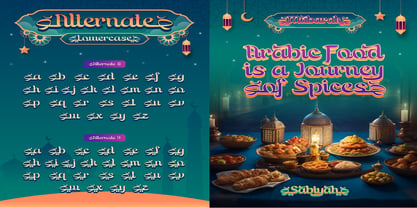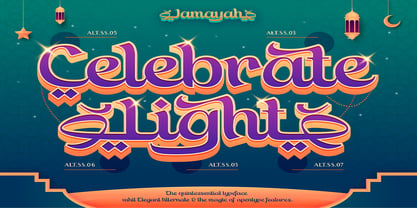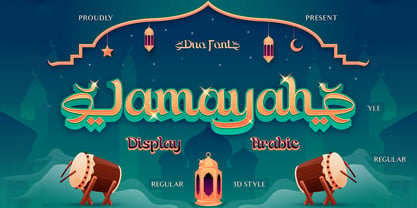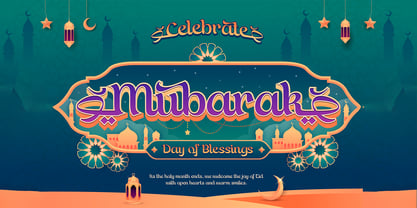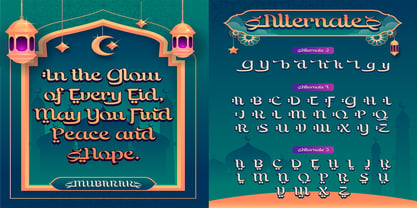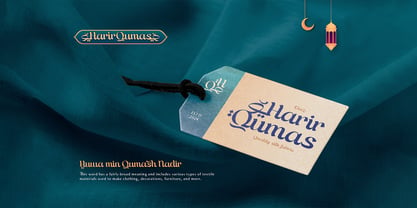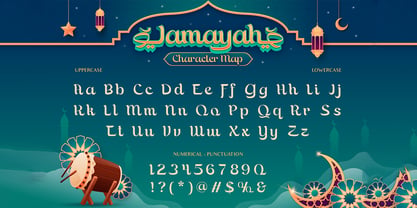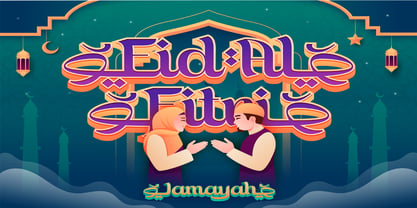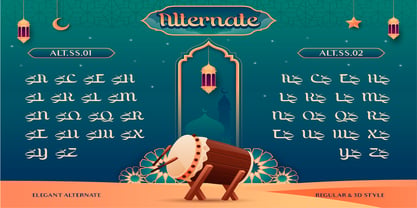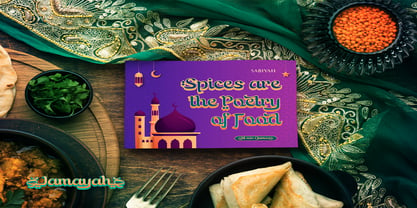
Jumaylah
by Burntilldead
The Jumaylah Font Family was designed by Eric Kurniawan and published by Burntilldead. Jumaylah contains 2 styles and family package options. More about this family
Jumaylah is a modern Arabic-inspired display font that brings festive vibes to your designs. With its bold strokes and smooth curves, this font feels perfect for Ramadan, Eid celebrations, Islamic events, or even branding that wants a touch of cultural elegance. It comes in two styles: Regular and 3D Style, so you can mix and match depending on the mood. Whether you’re designing posters, invitations, social media graphics, or packaging, Jumaylah adds that warm and joyful atmosphere that instantly connects with people. If you want your design to feel meaningful, festive, and full of character, Jumaylah is the font that makes every word shine. Features: A - Z set (Uppercase & Lowercase), Number, Alternates, Ligatures, Punctuation, Multilingual
Designers: Eric Kurniawan
Foundry: Burntilldead